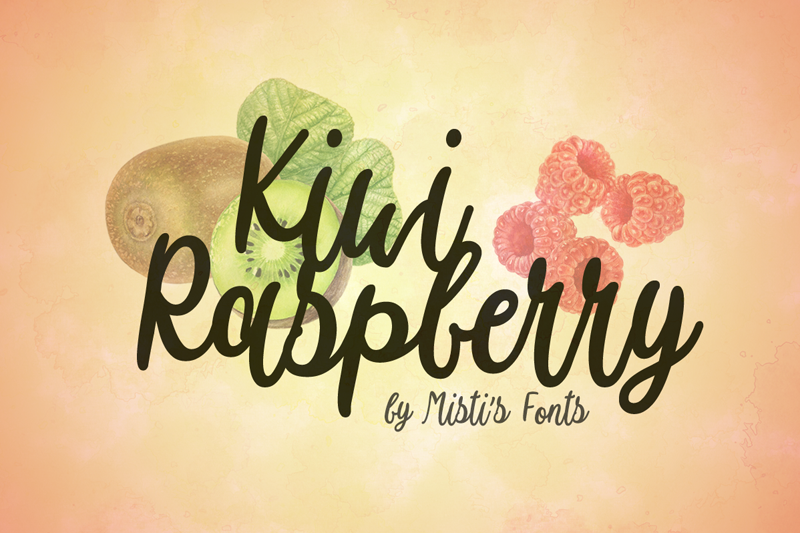
Preview and download Kiwi Raspberry Font. Created by Misti's Fonts in Script Various styles with Free for personal use license.
Kiwi Raspberry is a charming handwritten font. Allow its fun and whimsy style to inspire your summer projects. It would be perfect for viny and sublimation projects, and for creating stunning designs with your favorite cutting machine. Terms Of Use & Commercial Licensing: https://mistifonts.com/kiwi-raspberry/ |